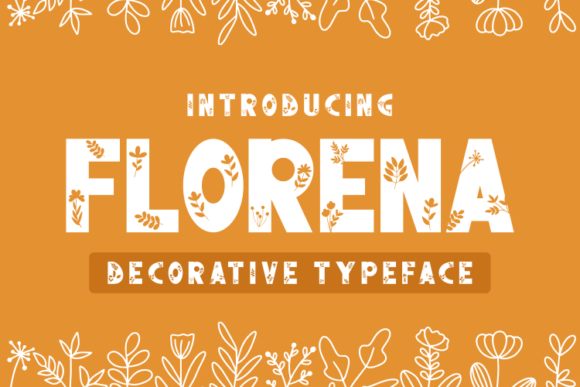
Introducing Florena Font: The Ultimate Decorative Font for Designers and Crafters
Are you tired of using the same old fonts in your designs? Do you want to add a touch of elegance and sophistication to your creations? Look no further than Florena Font, a cool and thick lettered decorative font that’s sure to take your designs to the next level. In this article, we’ll take a closer look at Florena Font, its features, and how it can enhance your font library.
What is Florena Font?
Florena Font is a beautifully crafted decorative font that’s perfect for designers and crafters looking for a unique and stylish way to express themselves. This font is neatly crafted and highly detailed, making it perfect for a wide range of design projects, from logos and branding to invitations and social media graphics.
Key Features of Florena Font
- Cool and Thick Lettered: Florena Font features thick, bold letters that are sure to grab attention. Its cool and modern design makes it perfect for designs that require a bit of edge.
- Highly Detailed: This font is meticulously crafted, with intricate details that make it stand out from other fonts.
- Neatly Crafted: Florena Font is designed with precision and care, ensuring that every letter and character is perfect.
- Versatile: Whether you’re designing a logo, creating a social media graphic, or crafting a beautiful invitation, Florena Font is the perfect choice.
Why You Need Florena Font in Your Font Library
Florena Font is a wonderful asset to your font library, regardless of the topic or project you’re working on. Here are just a few reasons why:
- Enhance Any Creation: With Florena Font, you can add a touch of elegance and sophistication to any design project.
- Stand Out from the Crowd: This font is unique and eye-catching, making it perfect for designers who want to stand out from the crowd.
- Save Time: With Florena Font, you can create stunning designs in no time, thanks to its easy-to-use and highly legible design.
How to Use Florena Font in Your Designs
Using Florena Font in your designs is easy. Here are a few tips to get you started:
- Pair it with Other Fonts: Florena Font looks great when paired with other fonts, such as sans-serif fonts or script fonts.
- Use it for Headings: This font is perfect for headings and titles, where you want to grab attention and make a statement.
- Experiment with Colors: Florena Font looks great in a variety of colors, from bold and bright to subtle and pastel.
In conclusion, Florena Font is a must-have for designers and crafters looking for a unique and stylish decorative font. With its cool and thick lettered design, highly detailed craftsmanship, and versatility, this font is sure to enhance any creation. Whether you’re designing a logo, creating a social media graphic, or crafting a beautiful invitation, Florena Font is the perfect choice. So why wait? Add Florena Font to your font library today and take your designs to the next level!